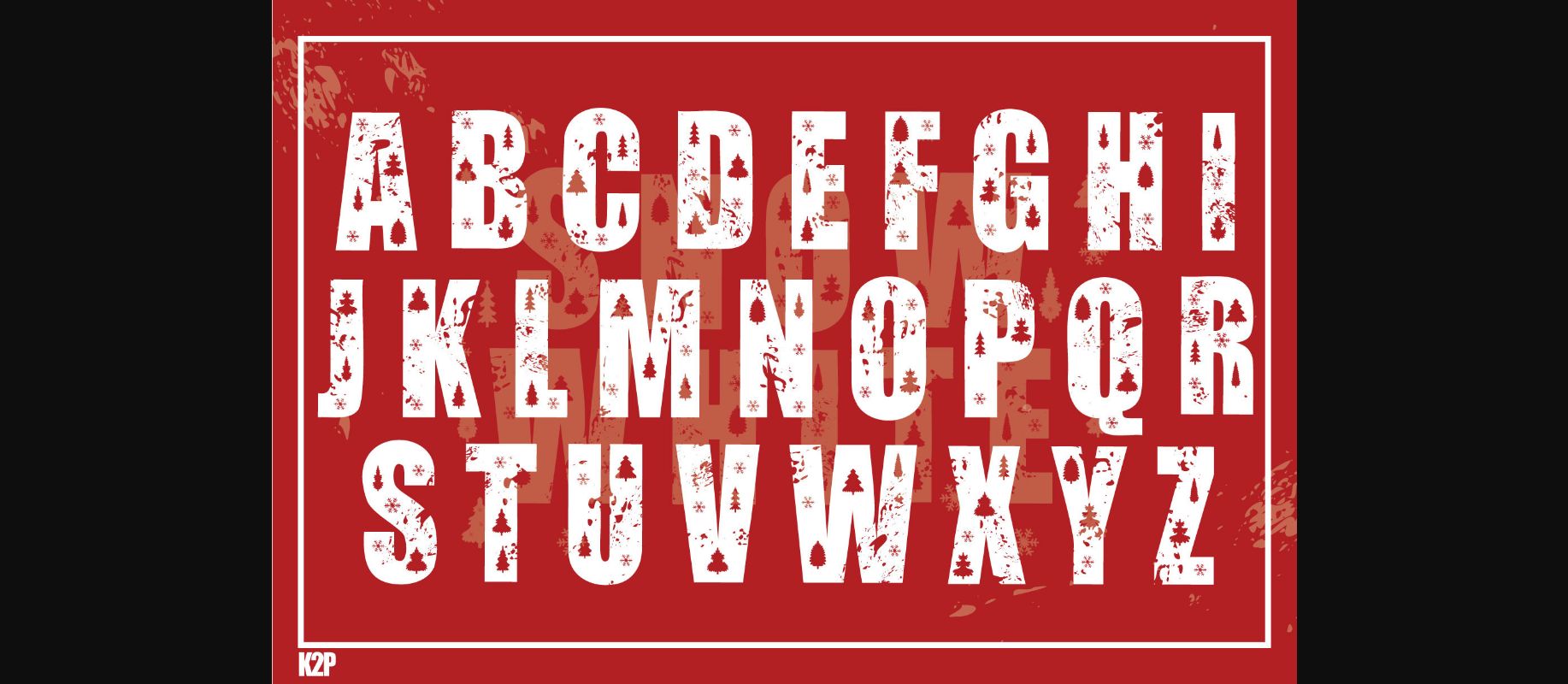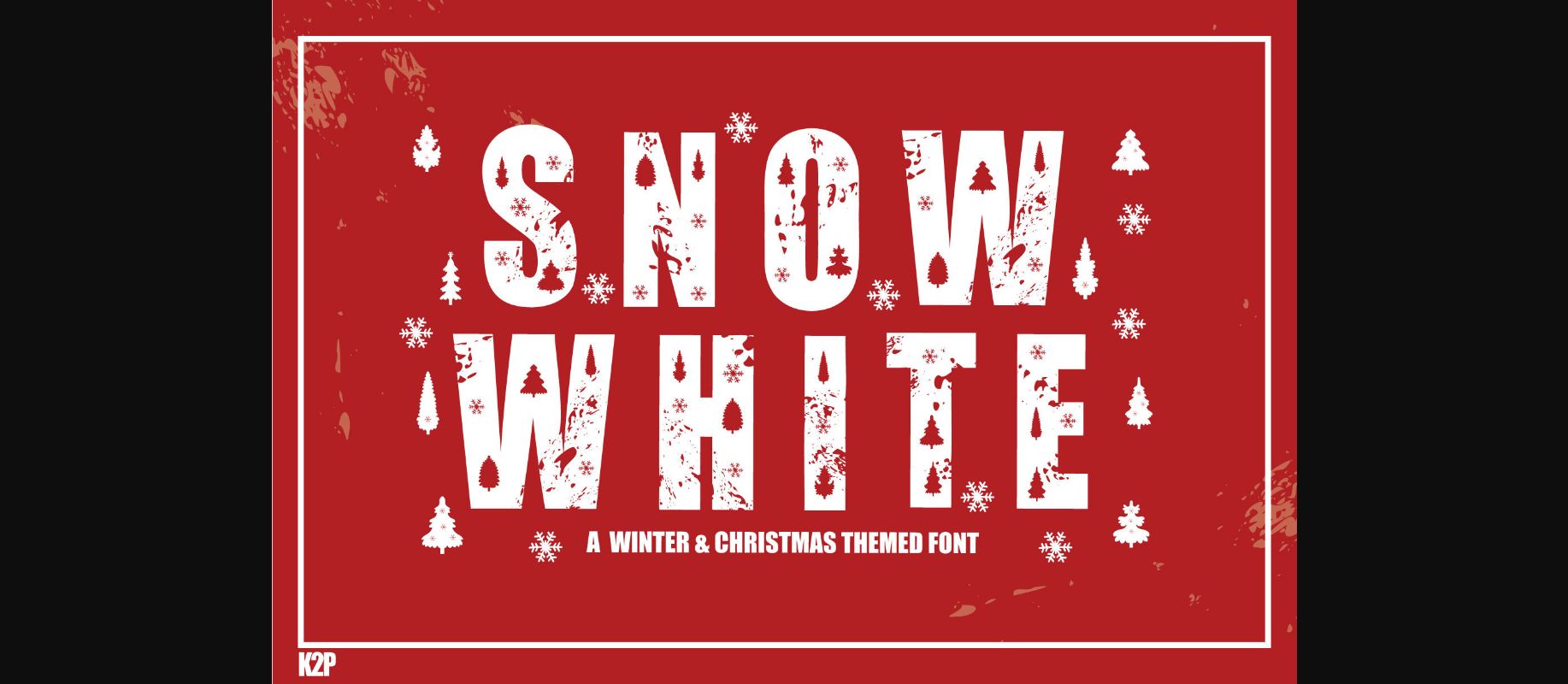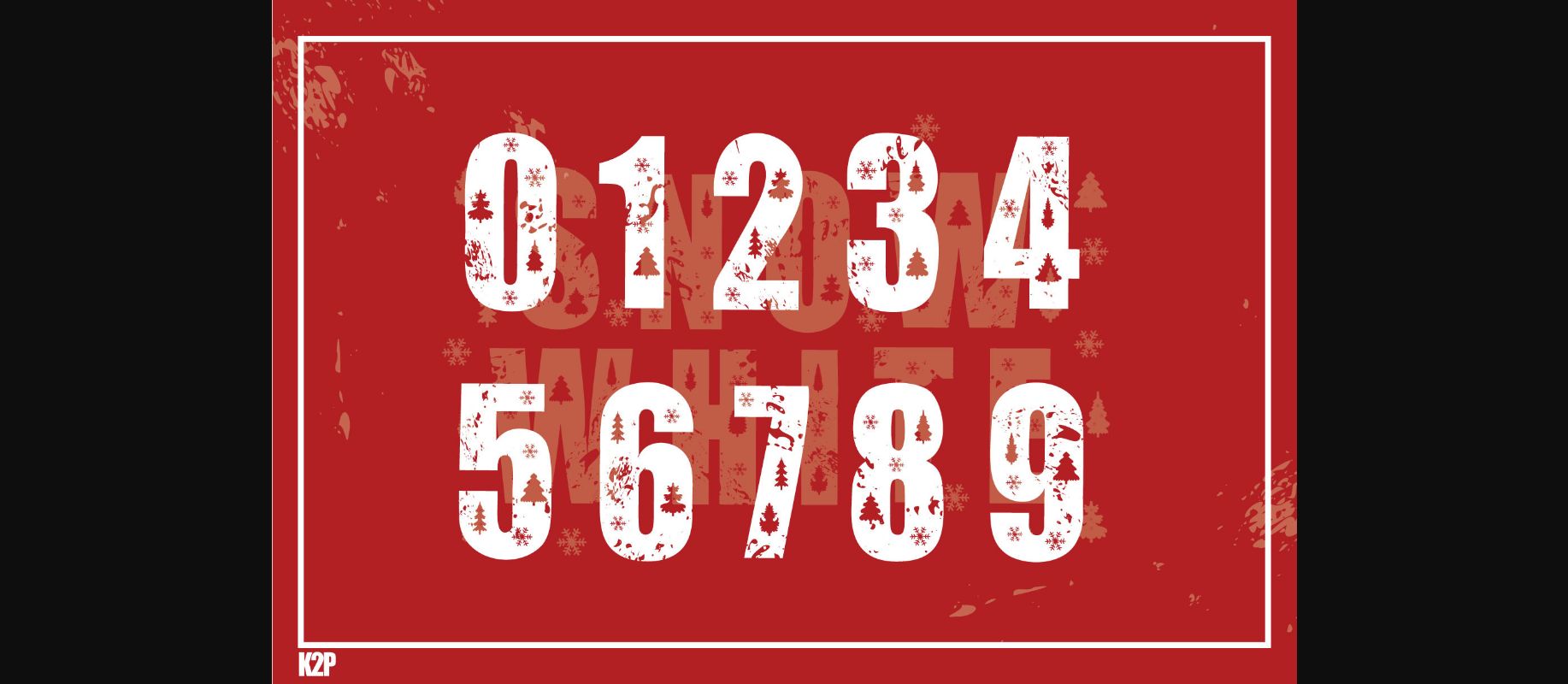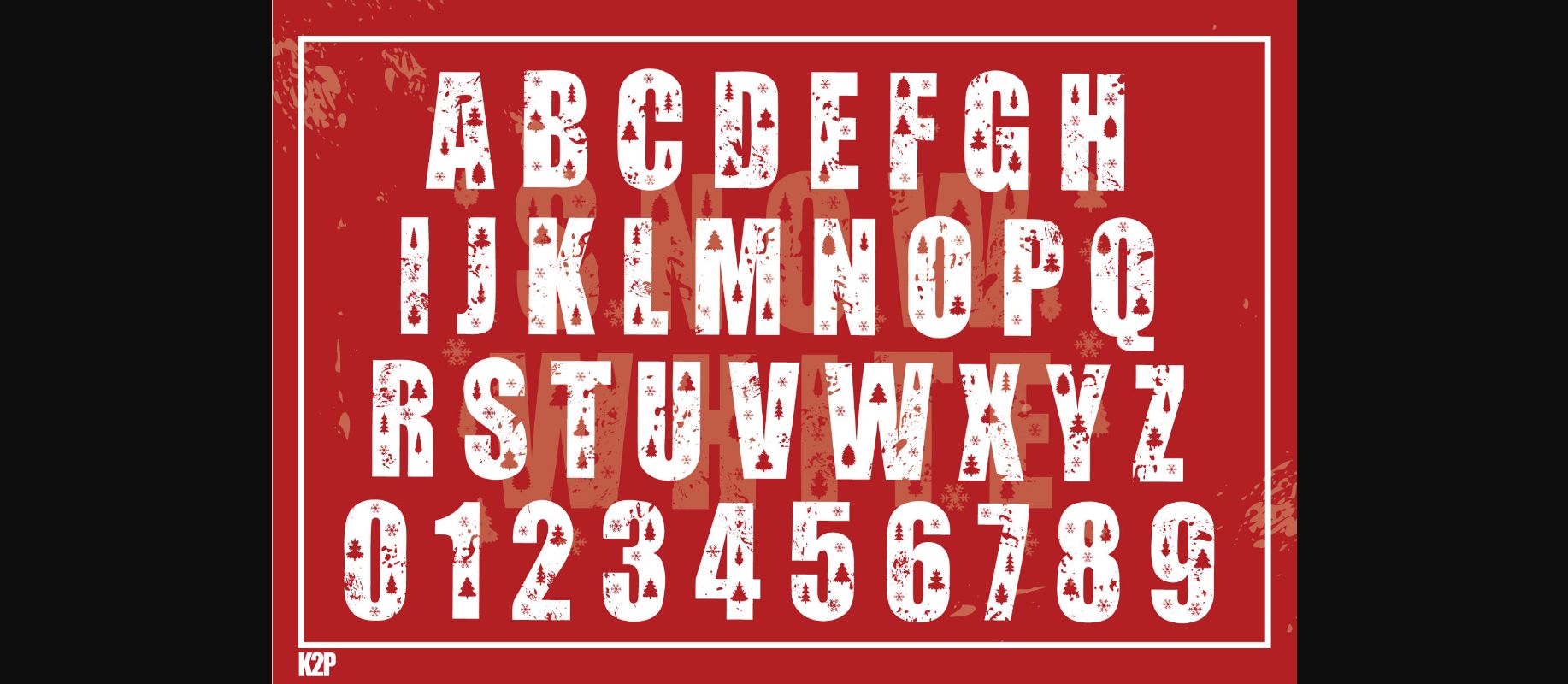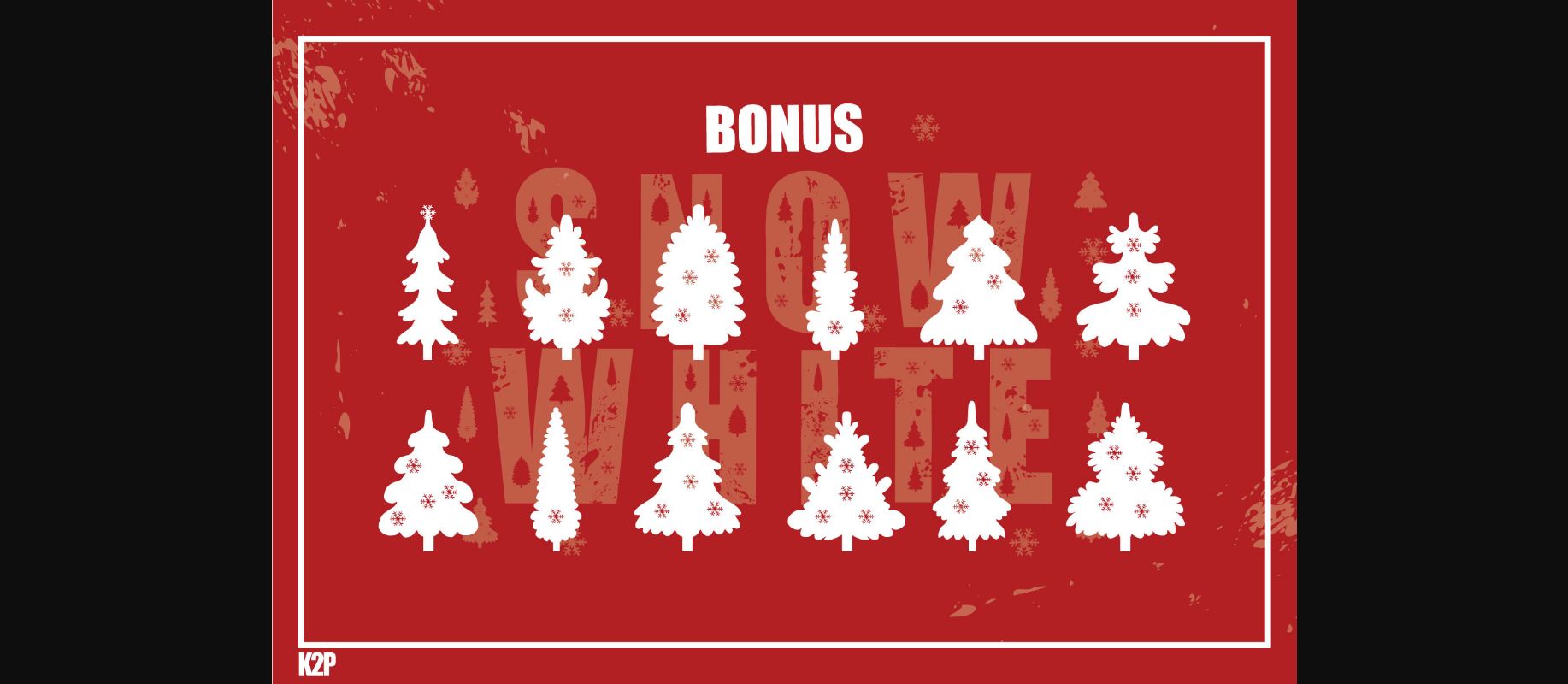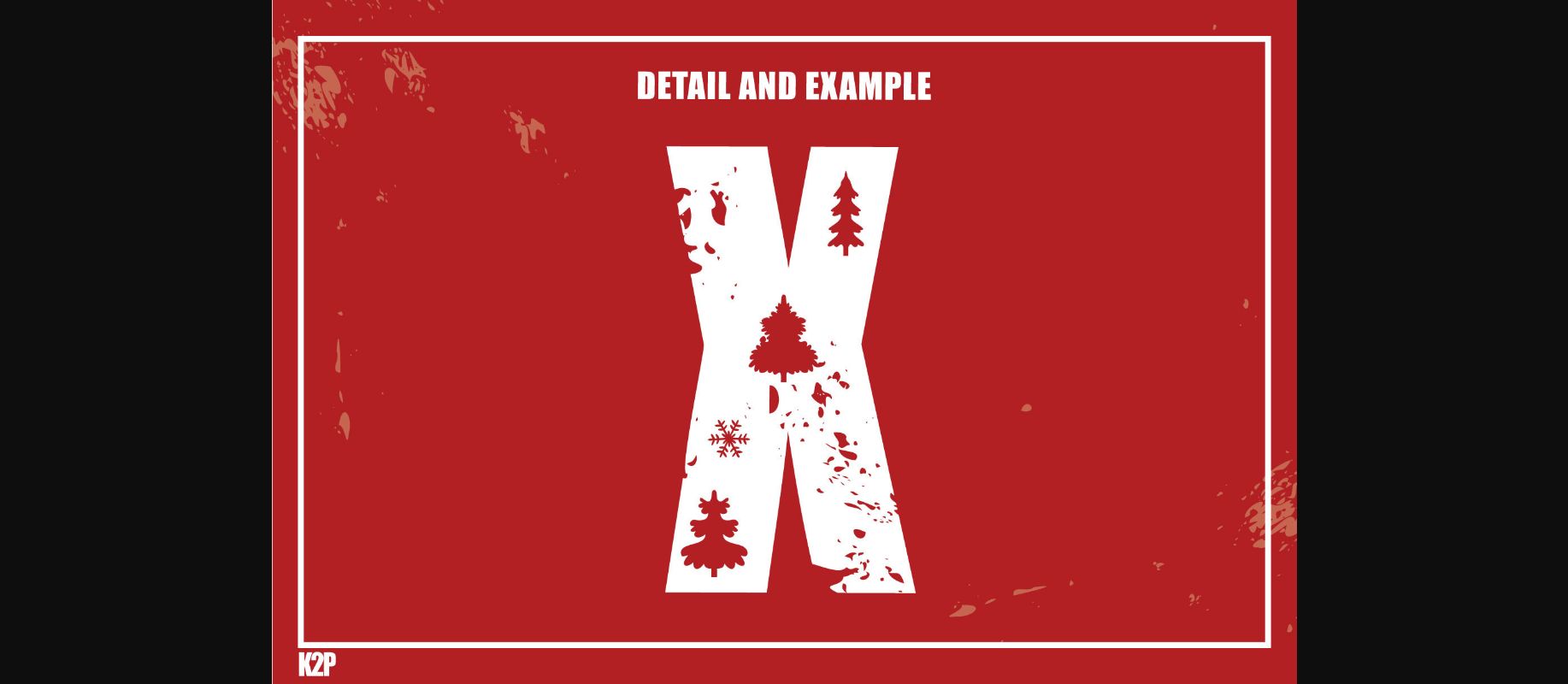
HomeDecorative FontsSnow White Font Decorative Fonts Snow White Font FacebookXPinterestWhatsApp 1 of 8 ... Snow White Font Poster 2... Snow White Font Poster 3... Snow White Font Poster 4... Snow White Font Poster 5... Snow White Font Poster 6... Snow White Font Poster 7... Snow White Font Poster 8... About Snow White Font Snow White is a thick lettered and incredibly unique decorative font. It can be used for various design ideas, particularly those related to the Christmas Holiday. DOWNLOAD NOW People also explored Total Young Font Progue Font Black Signatures Font Signigficante Font Snow White Font Simple Thick Font Stowmy Font Baleza Font Katherine Font 426 0 TagsSnow White Font Previous articleMonogram Snow Melting FontNext articleChristmas Star Font LEAVE A REPLY Cancel reply Comment: Please enter your comment! Name:* Please enter your name here Email:* You have entered an incorrect email address! Please enter your email address here Website: Save my name, email, and website in this browser for the next time I comment. Personal Use Free Engine Personal Use Free Read more about this font Manhattan Personal Use Free Read more about this font Doriss Girls Family Personal Use Free Read more about this font The Fourth Avenue Personal Use Free Read more about this font BLOG How to Install and Use Fonts on Windows, macOS, and Web Projects How to Install and Use Fonts on Windows, macOS, and Web Projects Fonts are a crucial part of design and branding. Whether you’re designing a... Exploring Font Trends The 10 Best Handwriting Fonts to Add Personality to Your Designs Using Fonts in Digital Marketing: Tips to Strengthen Your Brand Identity